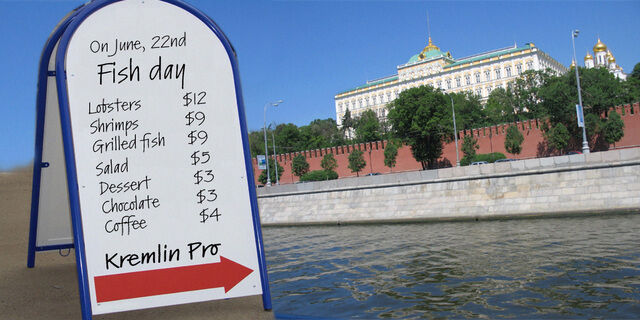
Kremlin Pro (3 fonts)
About Kremlin ProThe first version of Kremlin was designed at ParaType (ParaGraph) in 1995 by Tagir Safayev, based on an informal handwriting. Kremlin is a Russian word for a fortress or a citadel. Even the author is not quite sure why he had named the font like that. Probably the text line reminded him of a tight fence. Later the font was expanded in character set and got two style variations with extended proportions. The suffix "Pro" in the name was added to distinguish the new version from the previous one. The derivative work was done by Dmitry Kirsanov and Gennady Fridman in 2010. The font is recommended for advertising and display typography.
Associations for font family Kremlin ProTypeface personality and character:
vigorous, active, dashing, cutting, daring, informal, rhythmic, cheerful, peppy, natural, compressed, close-fitting, alive, temperamental, motivating, organic, summer, freewheeling, dynamic, spring, creative, quick, home, fast